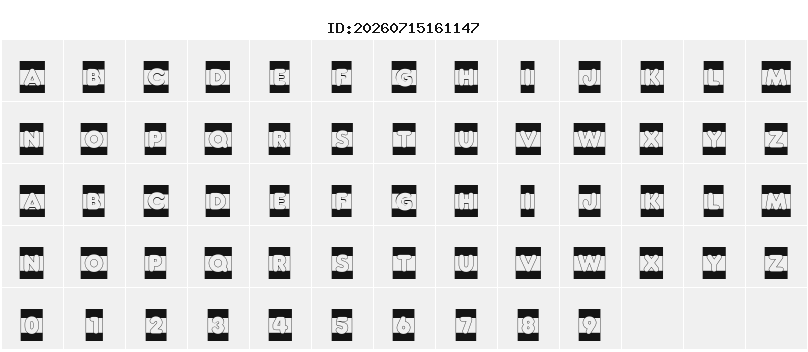
• Font Name: a_RunderCmB&W
• Full Font Name: a_RunderCameoBlack&White
• Designer: W.Chufarofsky & M.Slutsker
About a_RunderCmB&W.ttf
a_RunderCmB&W.ttf is a modern, elegant sans-serif font designed for ultimate readability and visual harmony. Perfect for branding, headlines, web design, and print materials.